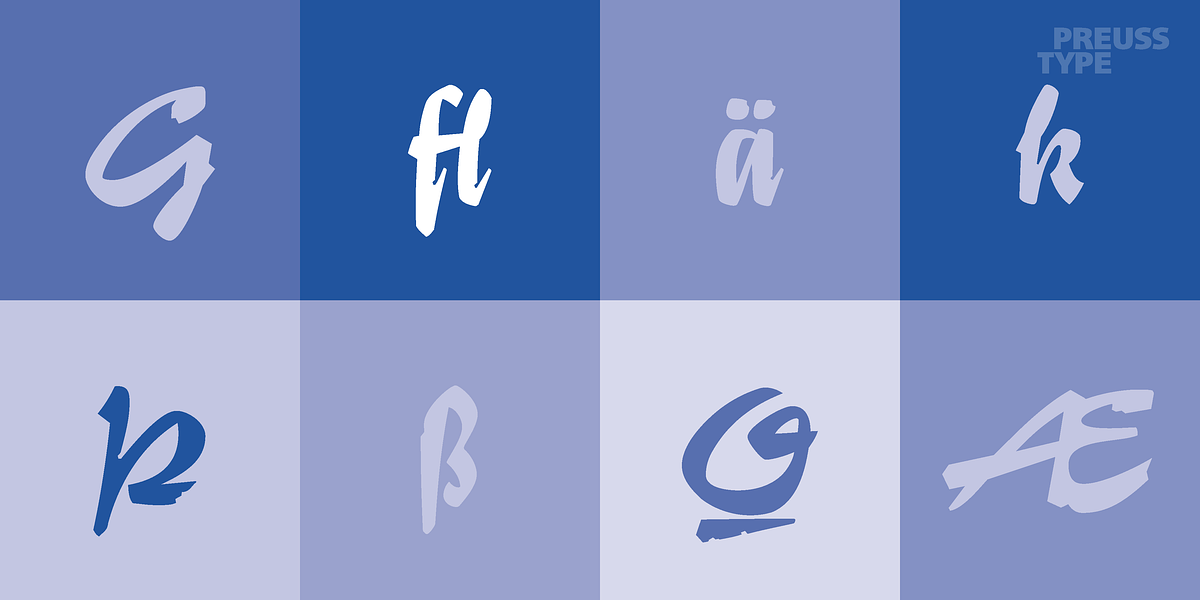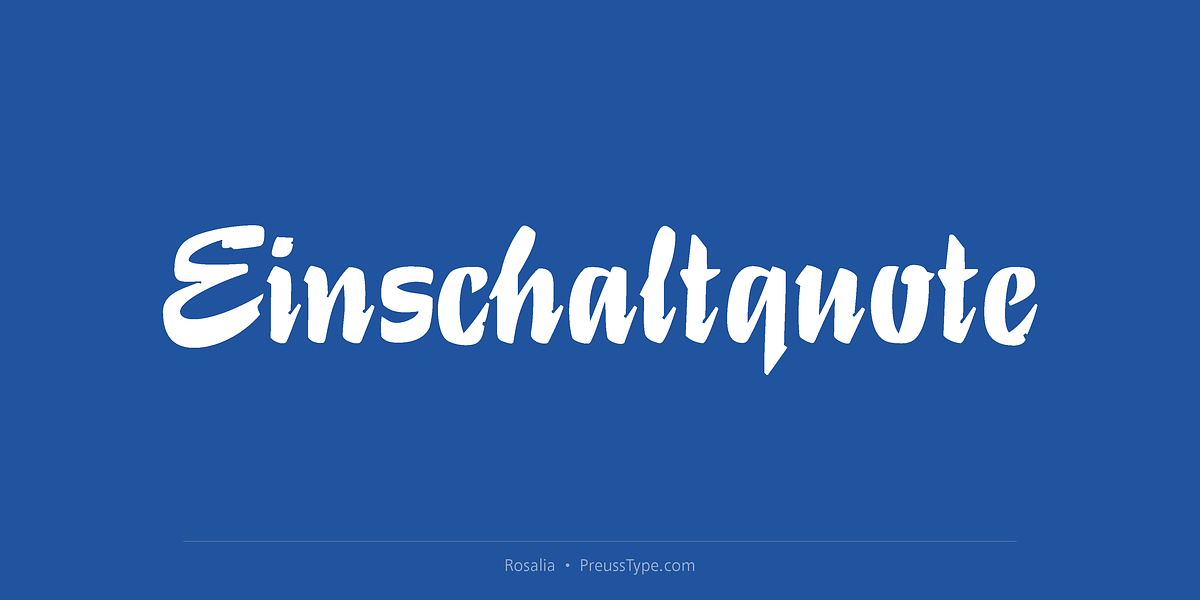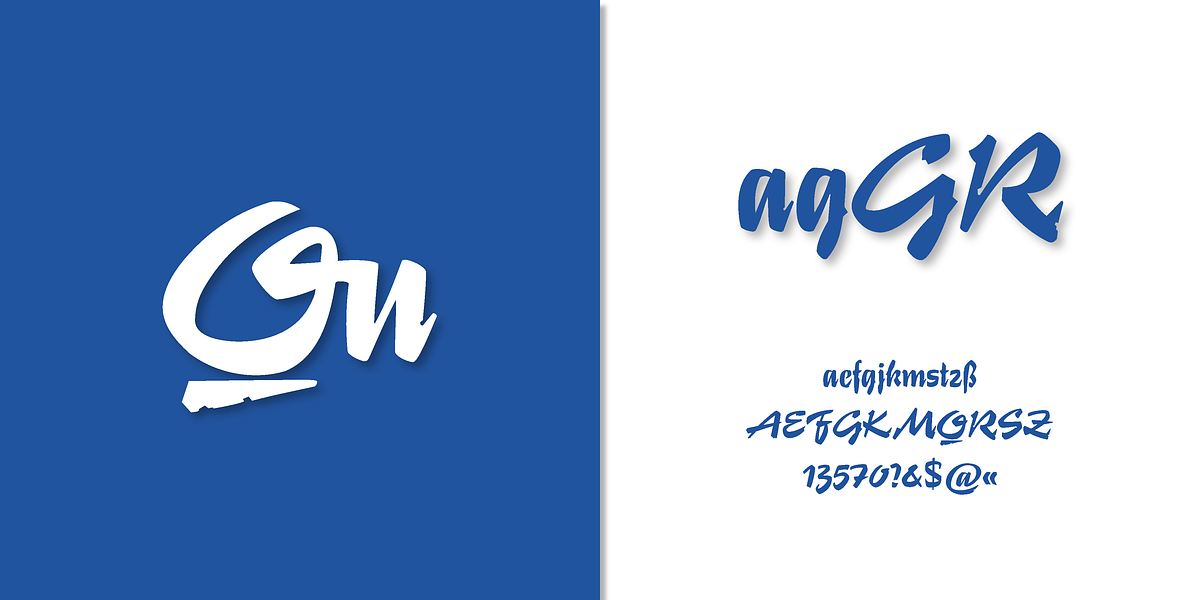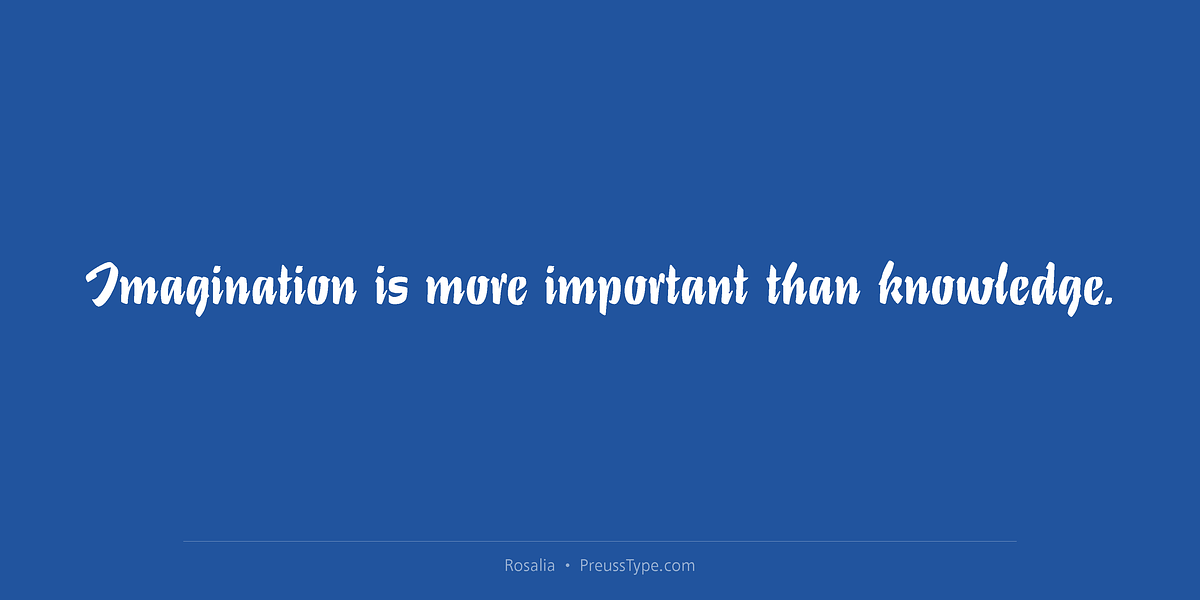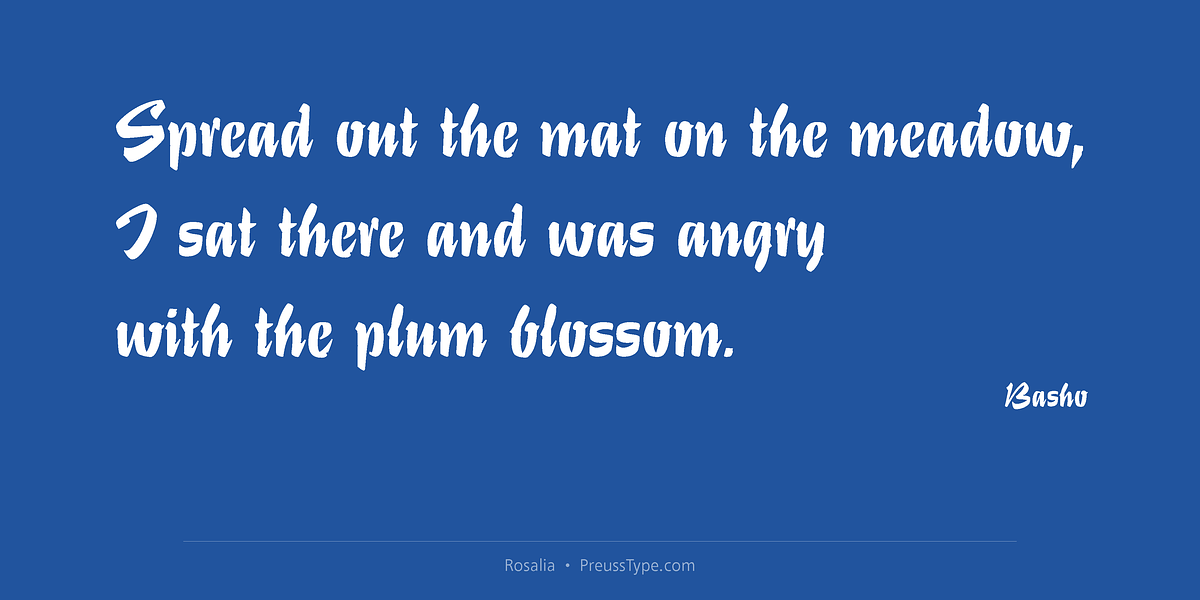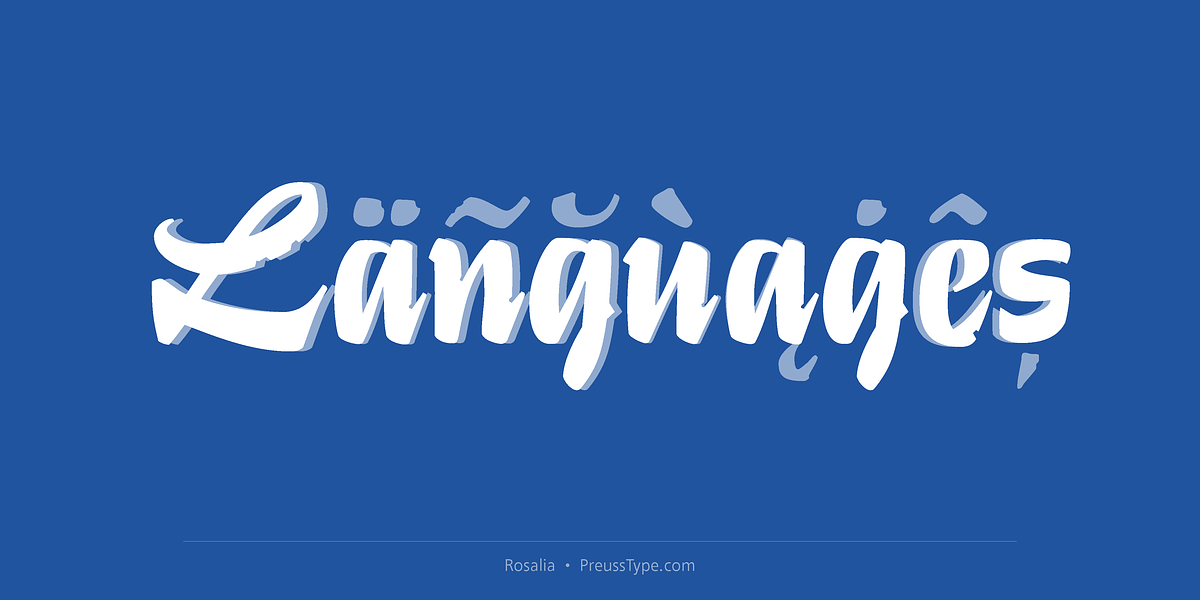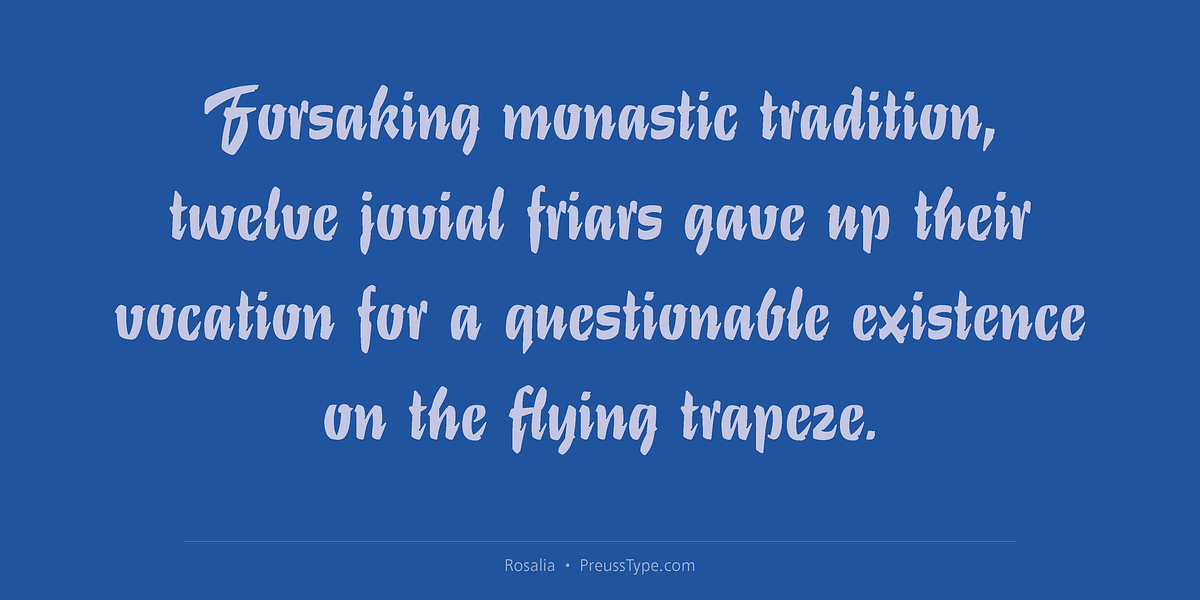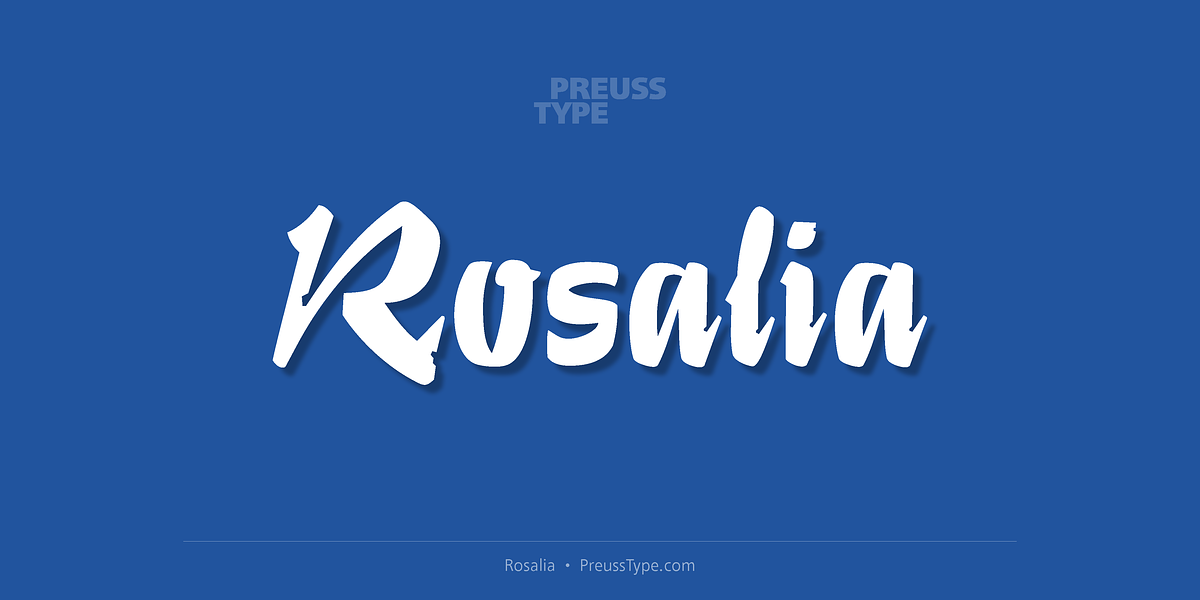
Rosalia
Rosalia, originally designed as Stentor in 1964 by Heinz Schumann for VEB Typoart Dresden, is a brush script typeface known for its spontaneous and lively feel. The marked stroke contrast further emphasizes this energetic character. It's well-suited for headlines and texts set in middle to large point sizes.